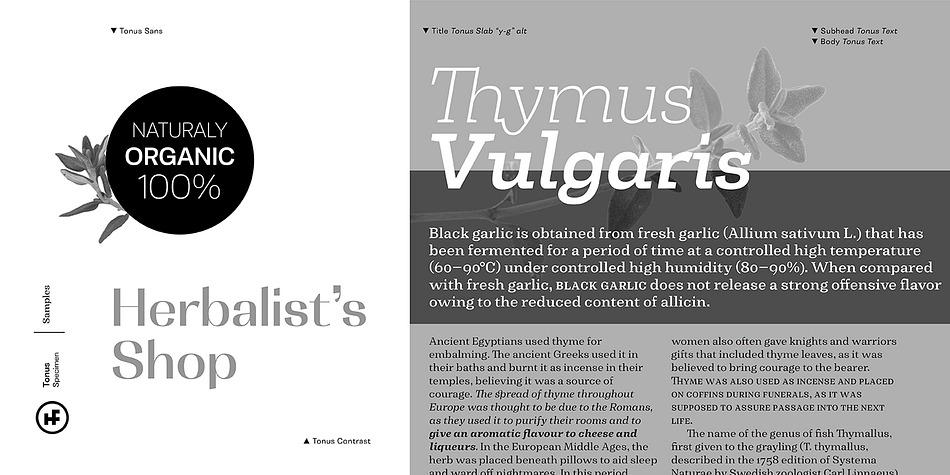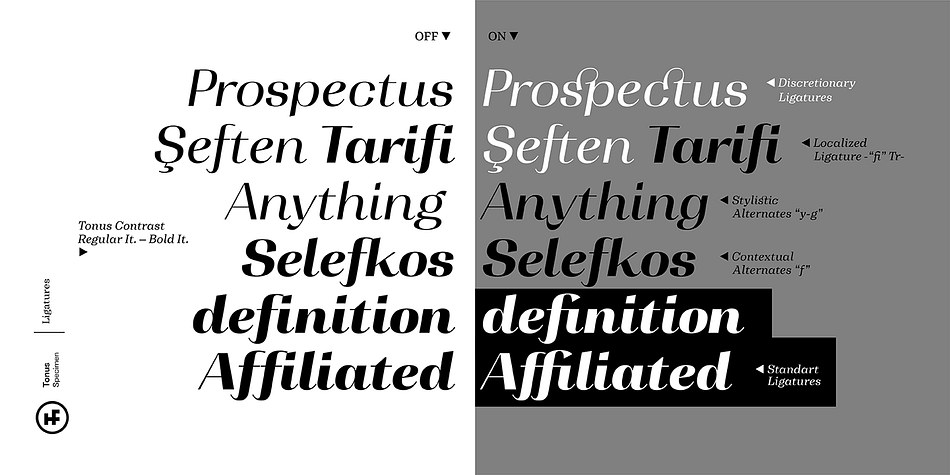
Tonus
Designed by Oğuzhan Cengiz, Tonus is a multiple classification font family. This typeface has eighty-four styles and was published by Hurufatfont Type Foundry.
Tonus Super Family; It is a family of five character styles built on the same skeleton. The entire Tonus Family is built on the skeleton of the “sans” family, it is the only family where five different styles are presented together. All families have an equal number of characters. It has rich opentype features. It inspires designers for different and creative applications such as brand building, periodicals, packaging, and social cultural event designs.
Styles Display Serif, Sans Serif, Serif, Slab Serif
Designer Oğuzhan Cengiz